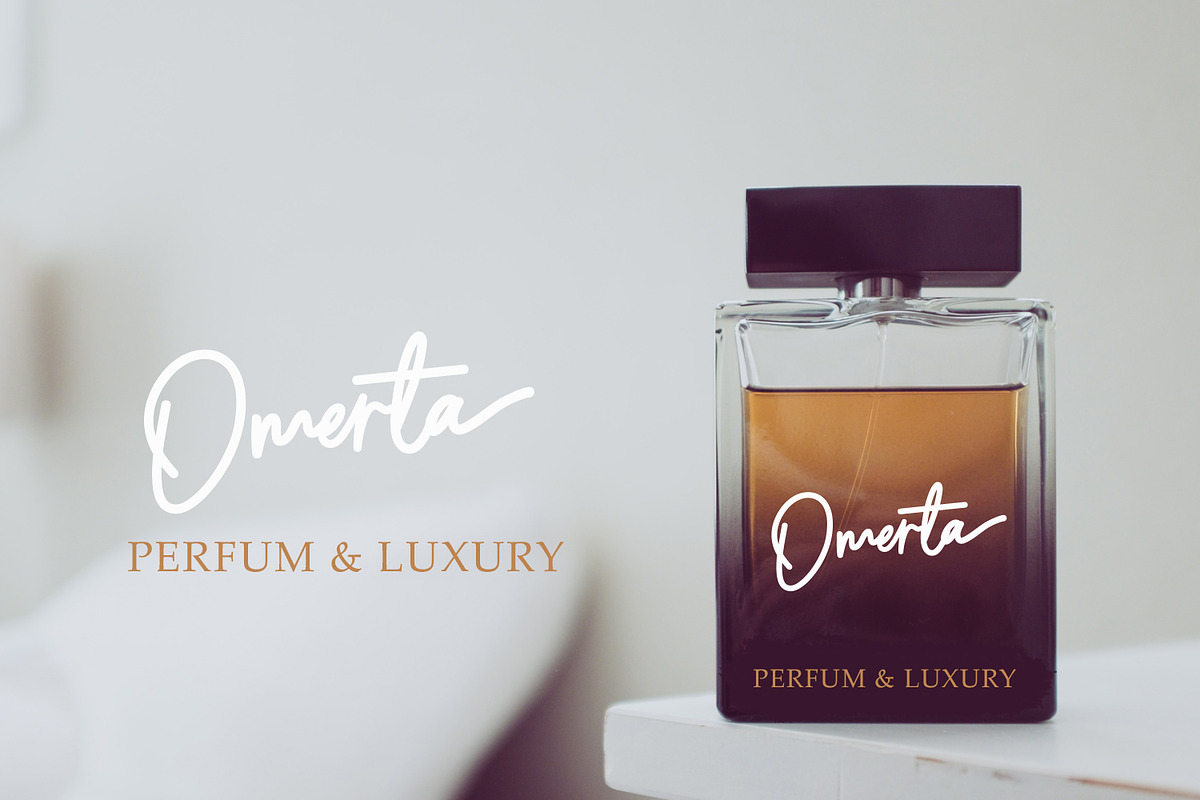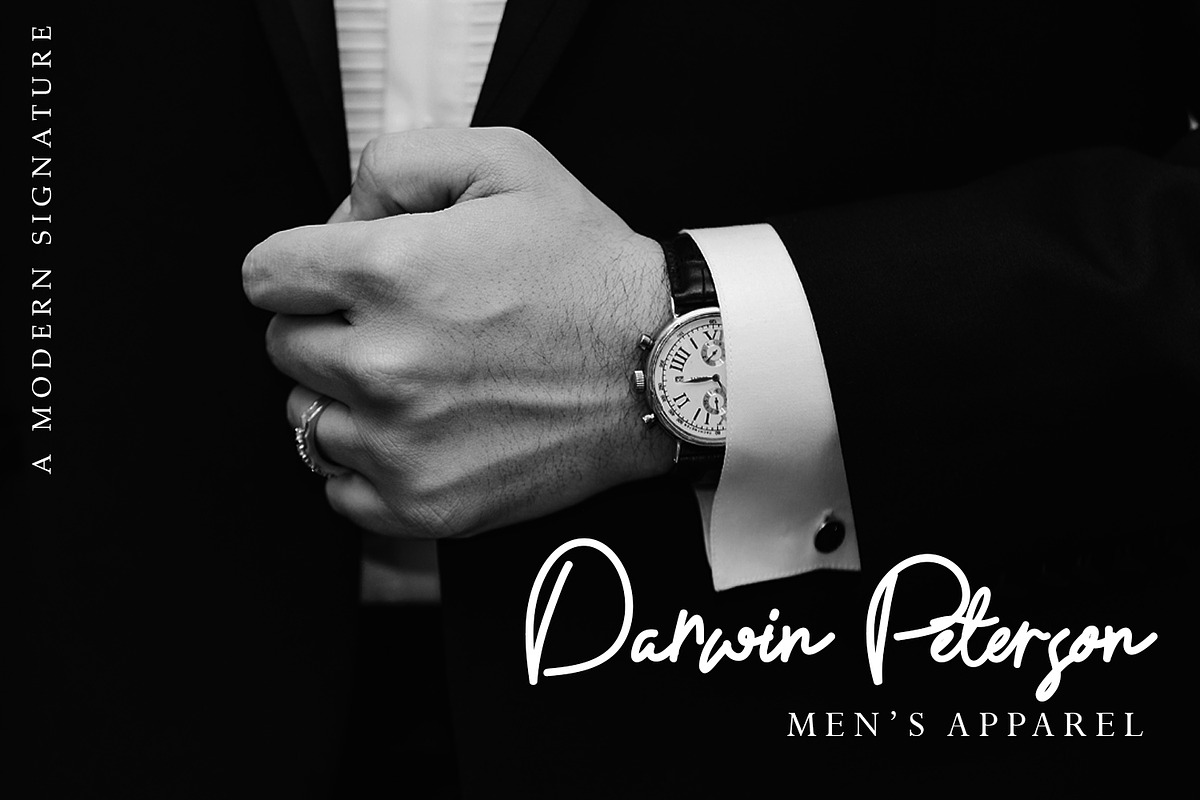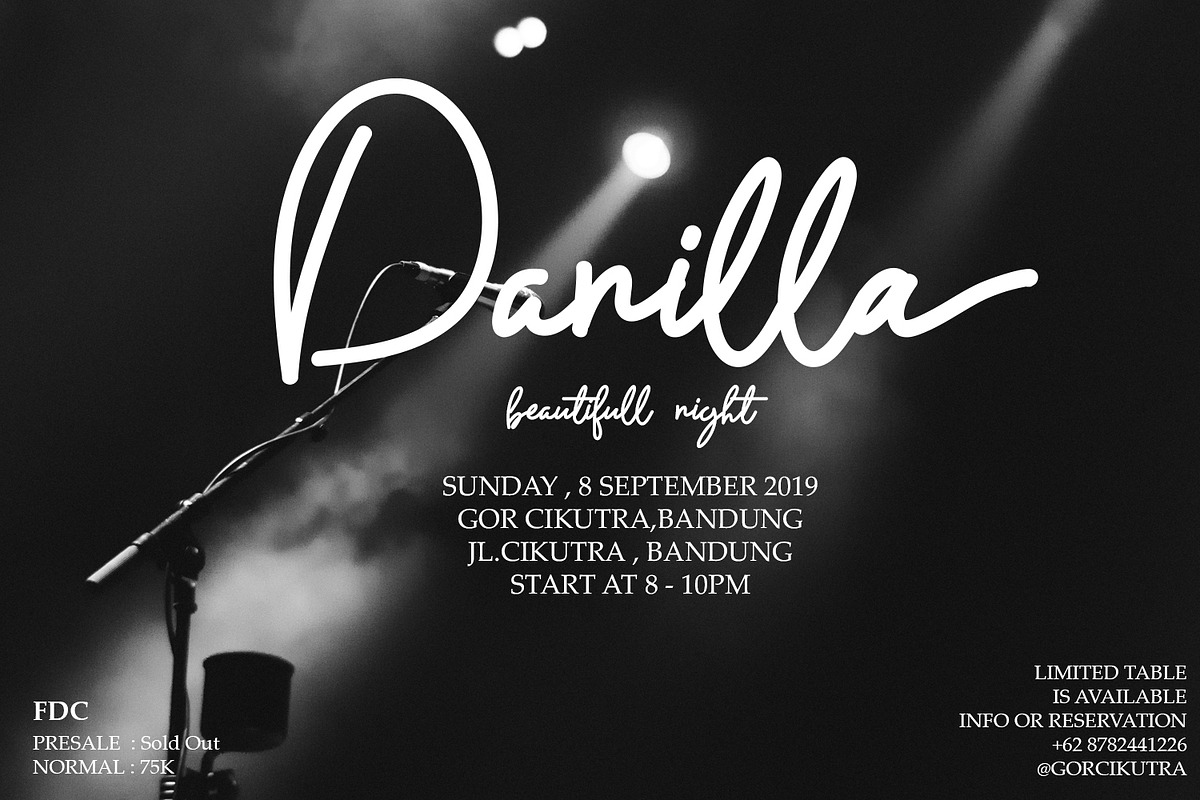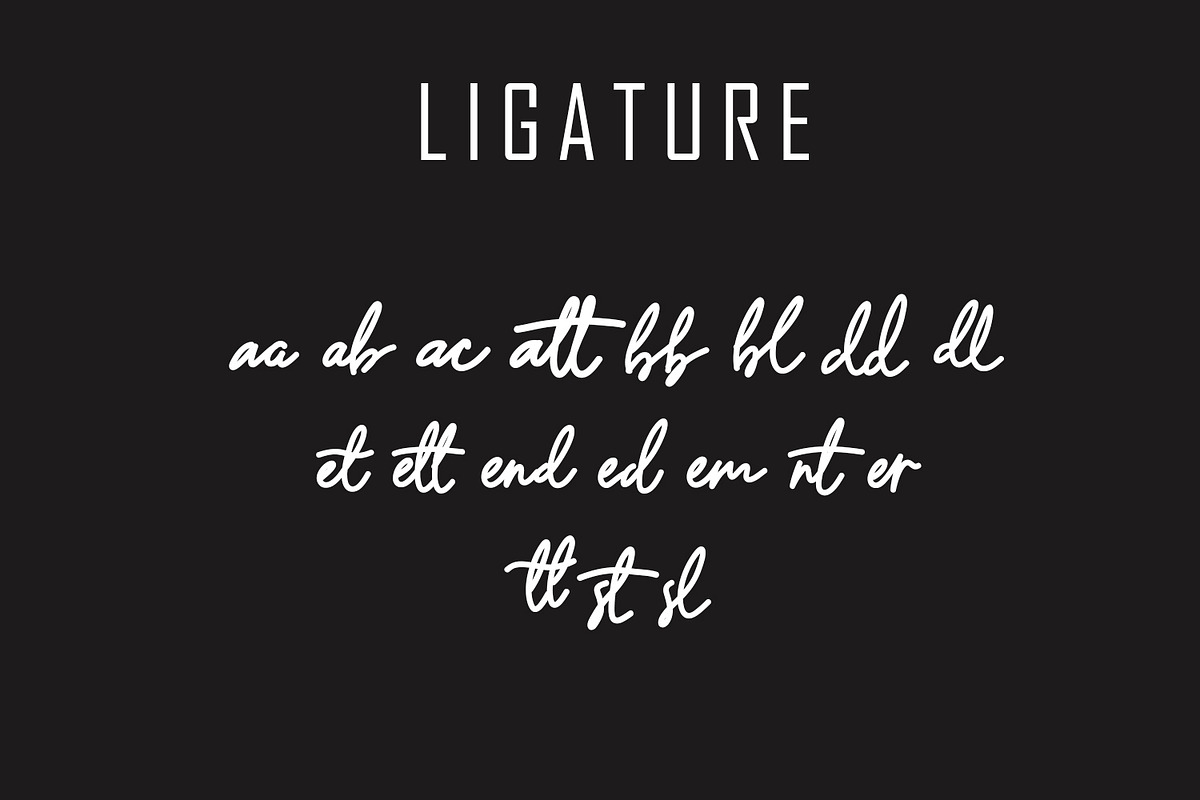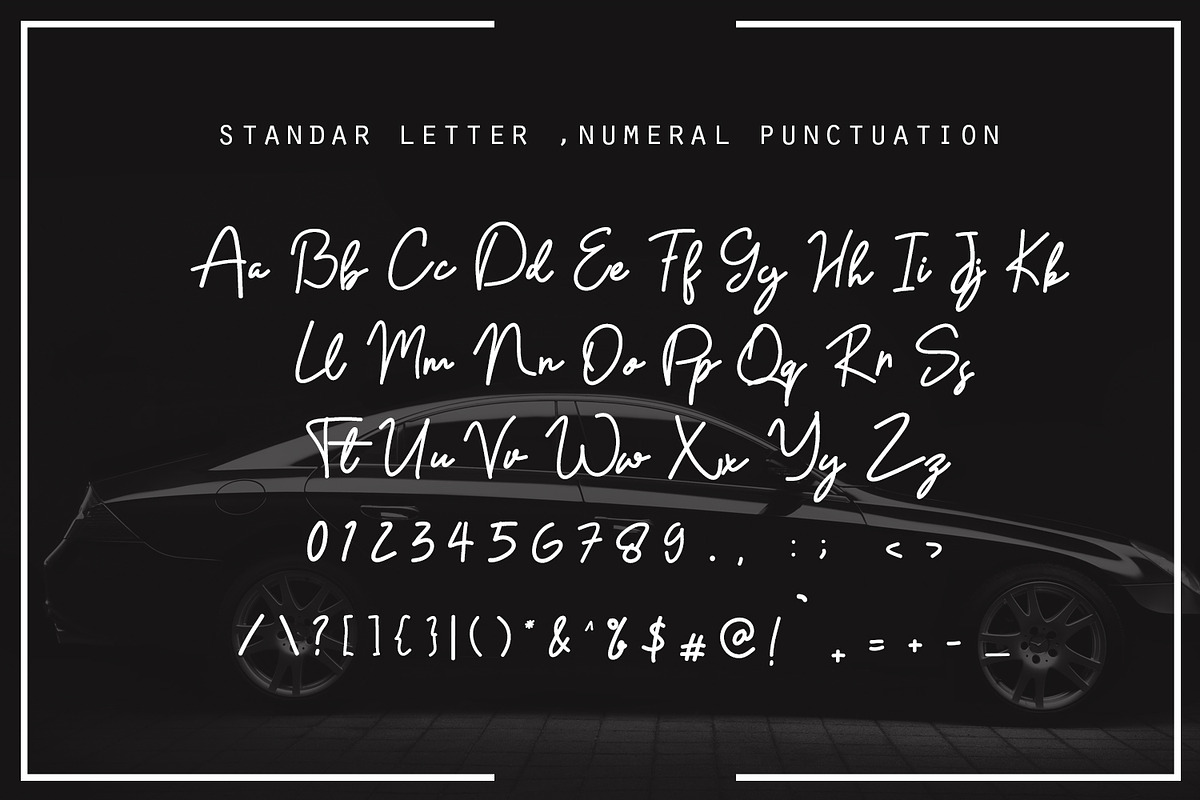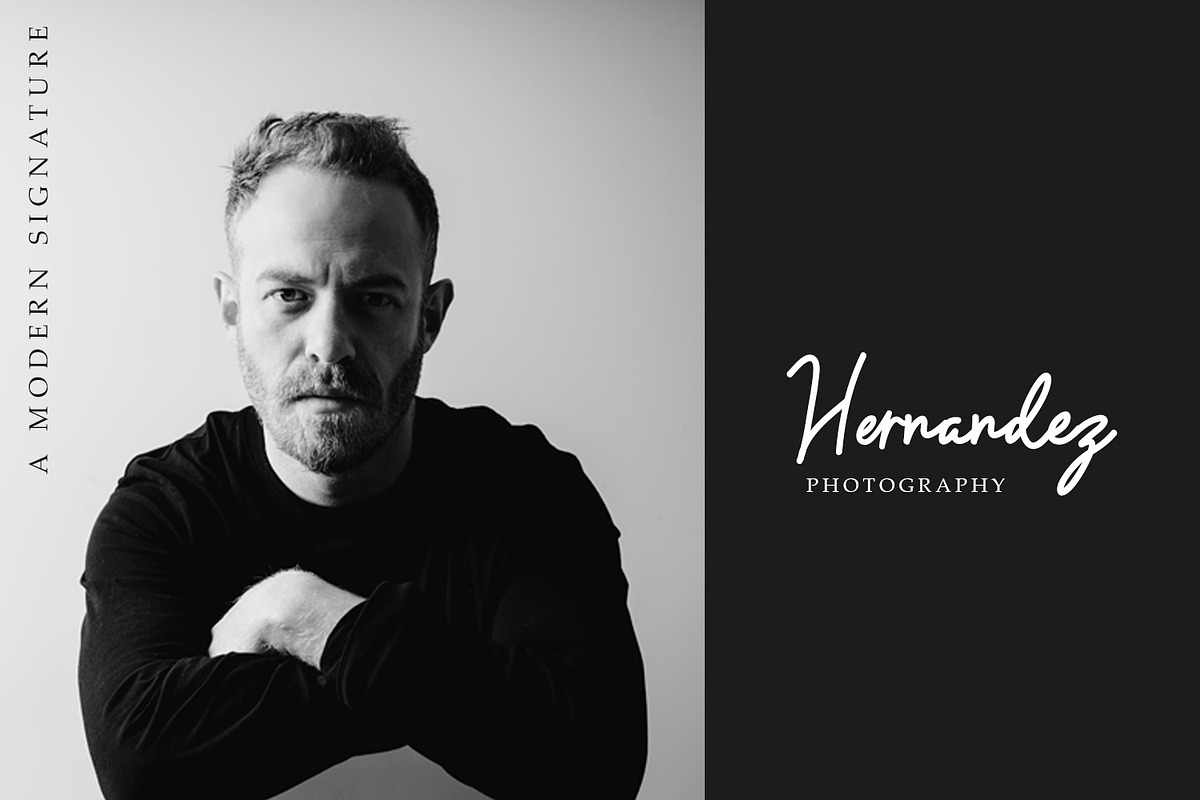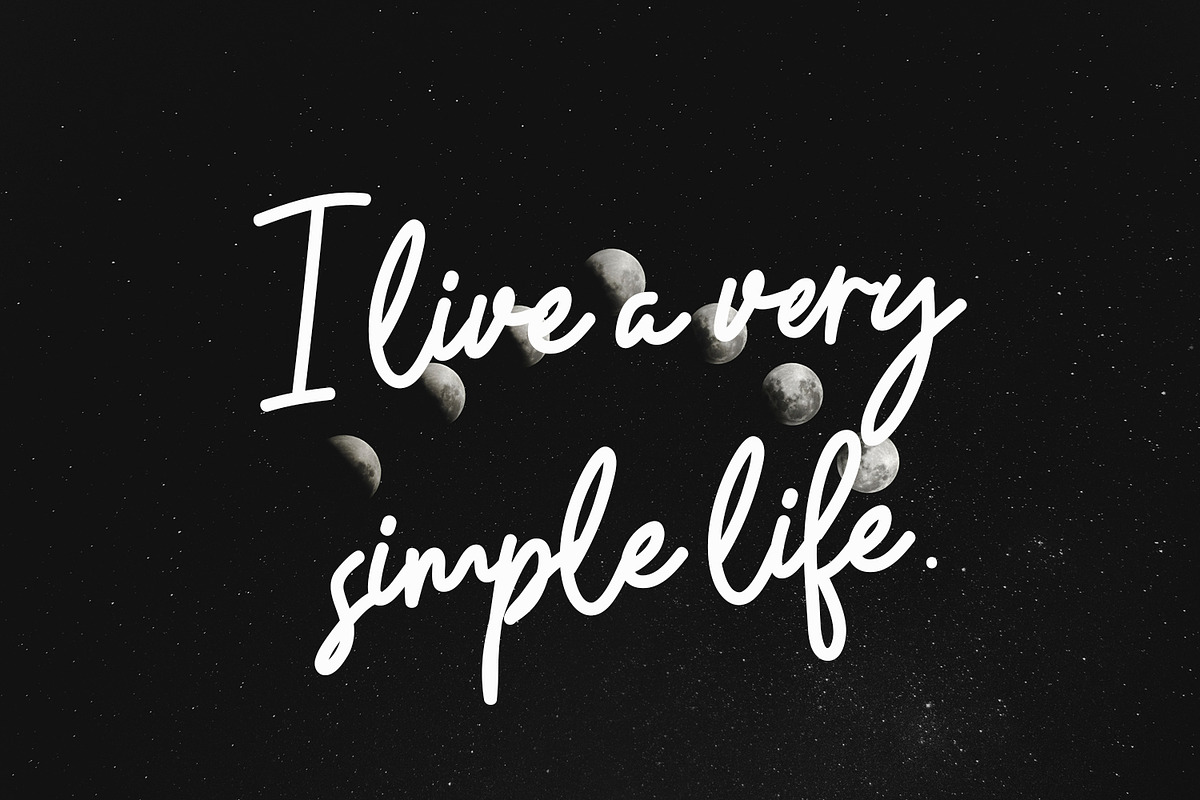
Danilla Modern Signature Font
Danilla Signature Modern script font
This font is very suitable for your design project because it is very elegant and modern style with character you can apply it on business cards, posters, branding names, logos, your products and others
It's a handwritten font. This font includes all upper and lower case standard characters, punctuation, numerals and ligatures.
- This font includes all upper and lower case standard characters, punctuation, numerals and ligatures.
Why Danilla Modern Signature Font is worth a look
Danilla Modern Signature Font by Arendxstudio fits naturally into Branding, posters, packaging, typography.